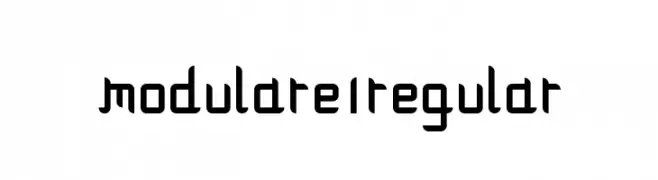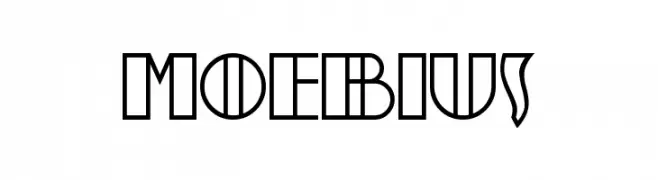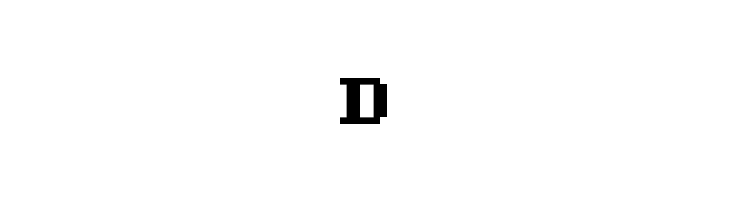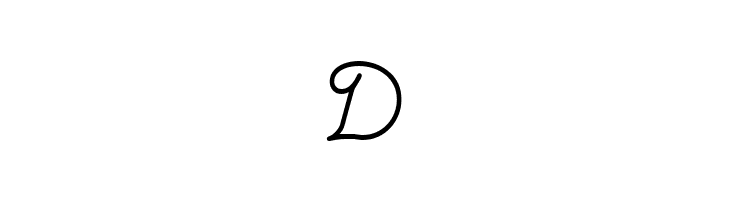
A modern, monospaced font with rounded edges and consistent stroke weight.
A bold, geometric font with sharp angles and a blocky appearance.
A pixelated, monospaced font with a retro digital aesthetic.
A pixelated, retro-style font inspired by early computer systems.
A pixelated, monospaced font with a retro digital style.
A pixelated, monospaced typeface inspired by classic DOS aesthetics.
A pixelated, monospaced font with a retro digital aesthetic.
A playful and elegant script font with a handwritten quality.
A bold, geometric font with a modern and striking design.